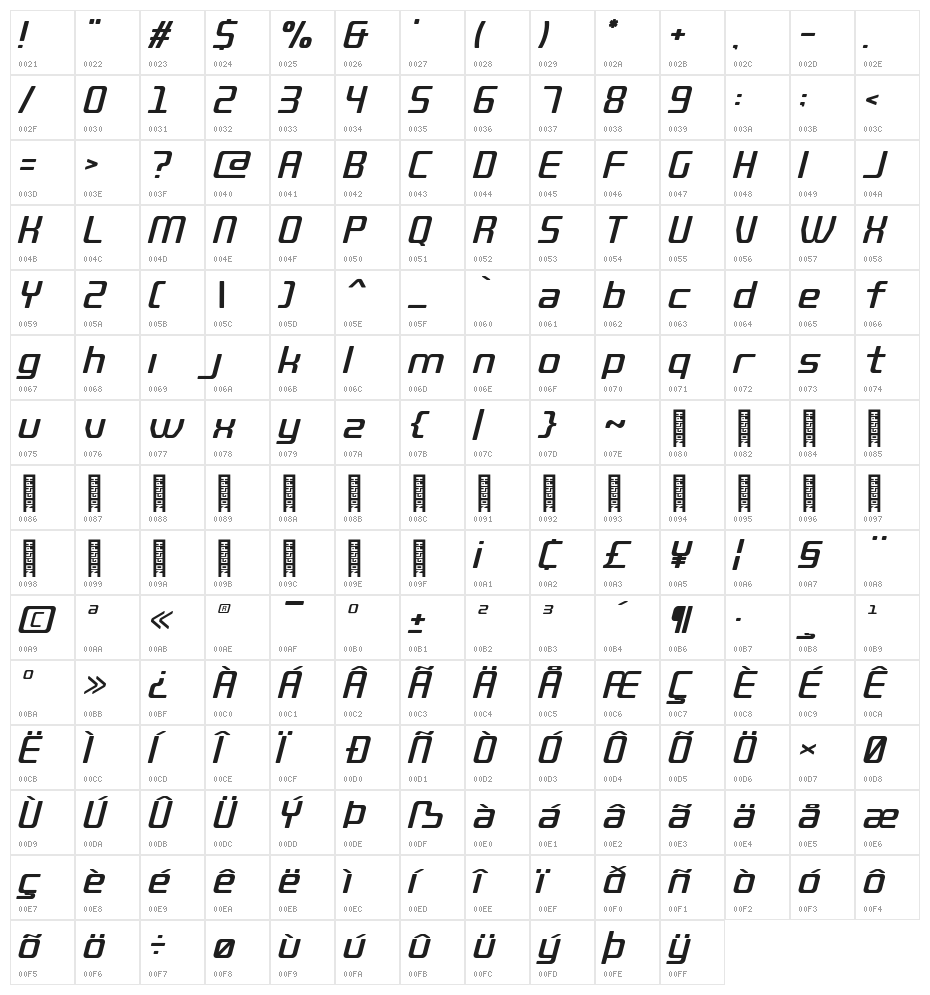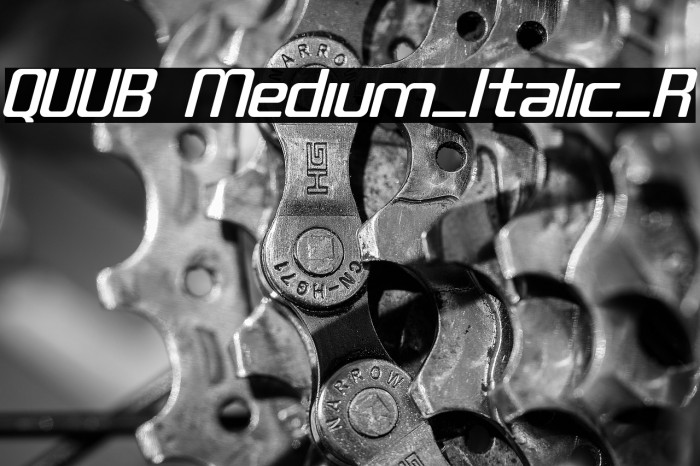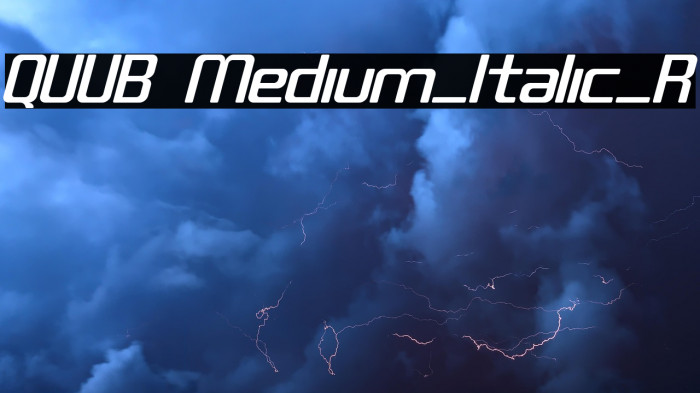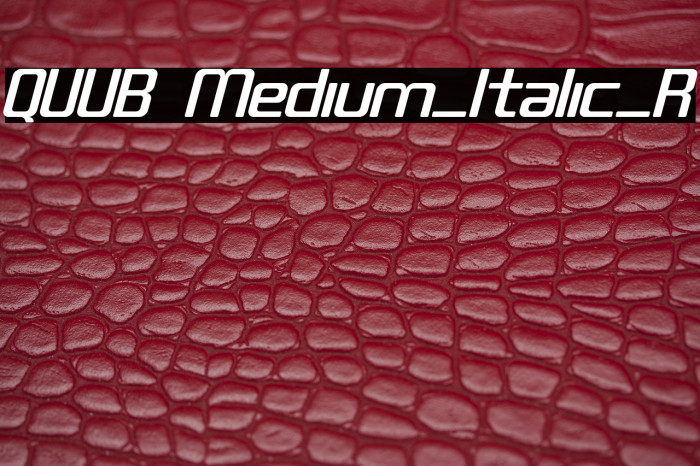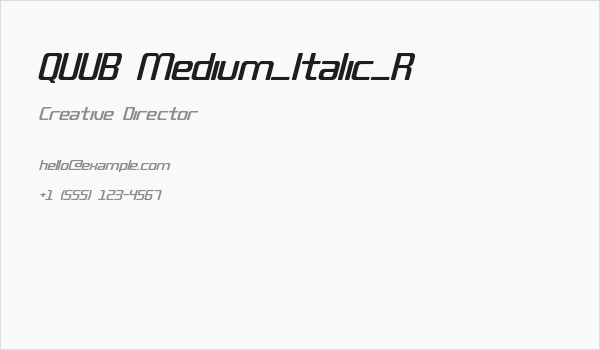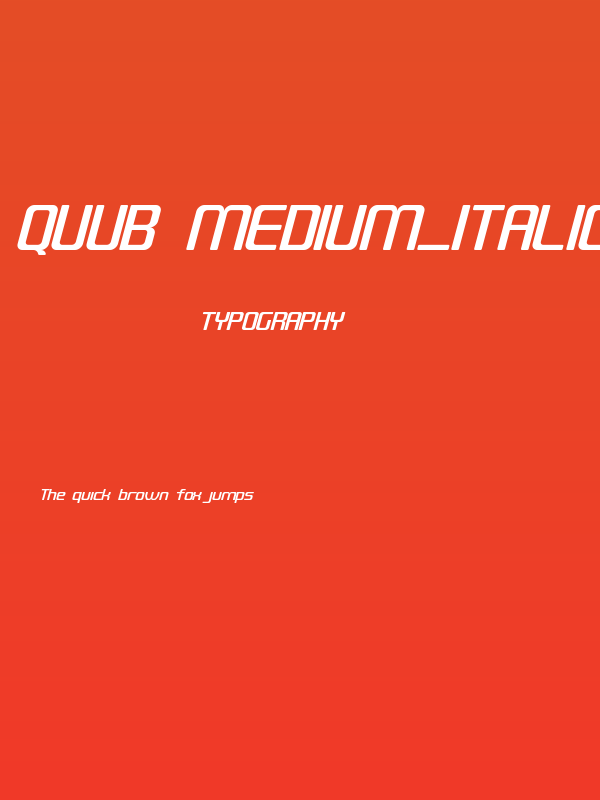
QUUB Medium_Italic_R Font
QUUB Medium_Italic_R Description
This font features a sleek, modern design with a distinctly futuristic feel. The characters are slightly italicized, giving them a dynamic and forward-leaning appearance. The strokes are uniform in thickness, contributing to a clean and streamlined look. The letters are well-spaced, ensuring readability while maintaining a compact form. The font includes a full set of uppercase and lowercase letters, numbers, and a variety of special characters, making it versatile for different uses. Its geometric shapes and smooth curves make it suitable for technology-related projects, branding, and advertising where a contemporary and innovative aesthetic is desired.
| Use Case | Headlines, Logos, Digital Interfaces |
| Proposed Projects | Ideal for tech branding, modern advertising, digital interfaces, and innovative product packaging. |